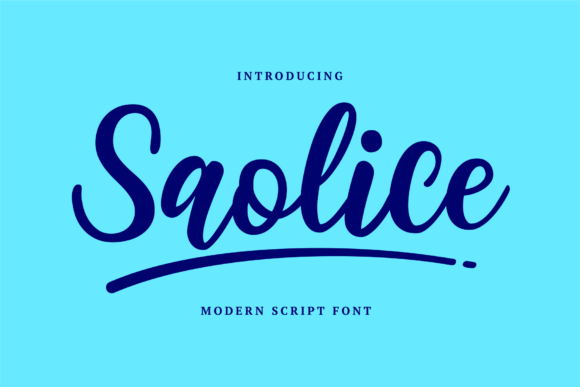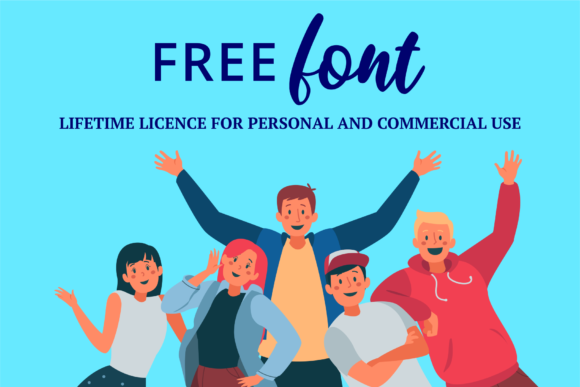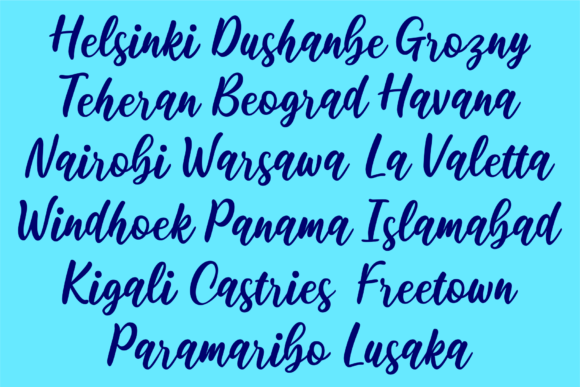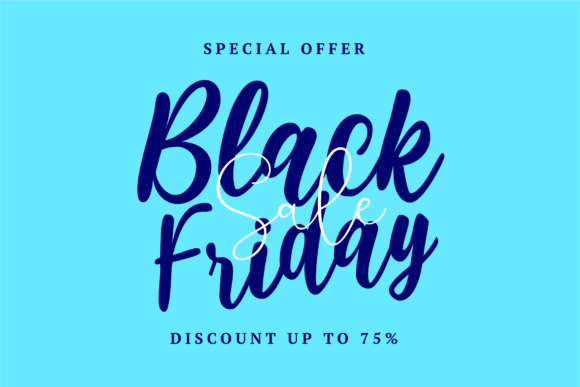
About Saolice Font
Saolice is a simple and incredibly sweet handwritten font. This font is perfect for many sorts of projects, like quotes, greeting cards, invitation cards, children books, and so much more.Add Saolice to each of your creative ideas and notice how it makes them stand out!